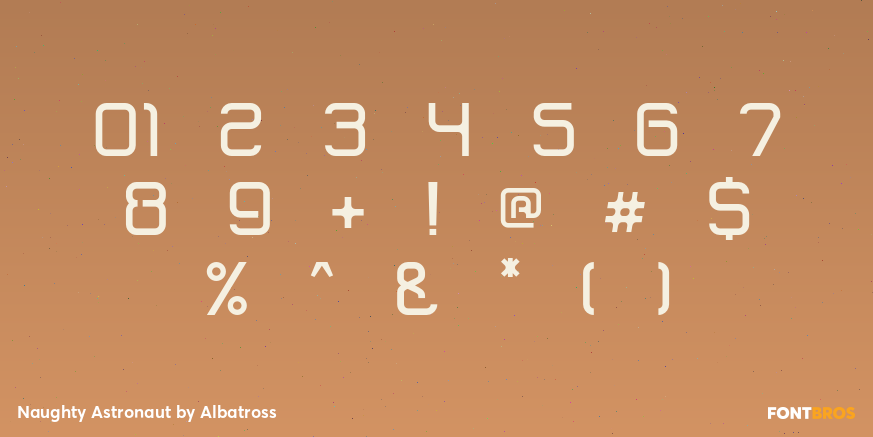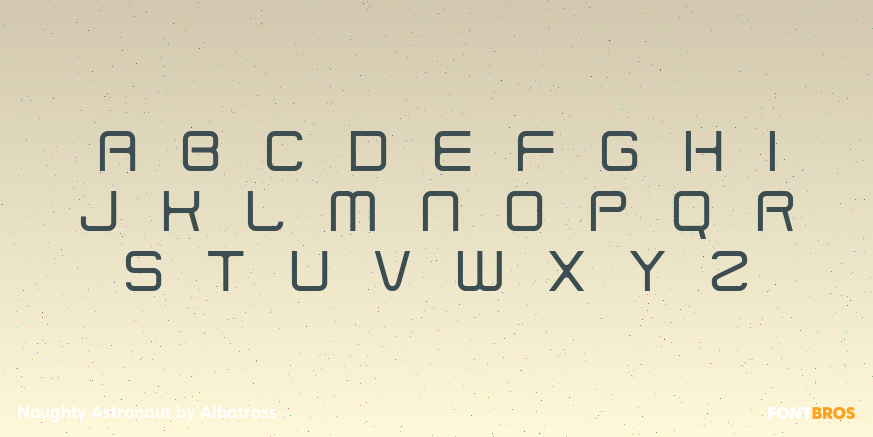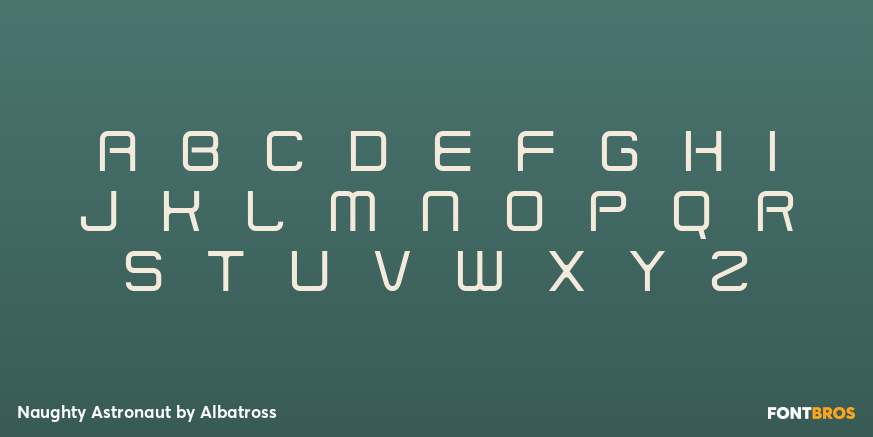
Naughty Astronaut
Font Family by Albatross
This family includes 2 styles, Regular and Italic, offering a little range for bold headlines and directional, motion-driven typography. Its extended proportions and polished construction make it a strong fit for posters, branding, packaging, signage, and other display work that calls for a modern, space-age voice.
Designed by Albatross, this is a sharp choice for projects that want futuristic character without sacrificing clarity. Use it when you need type that feels contemporary, controlled, and a little adventurous.